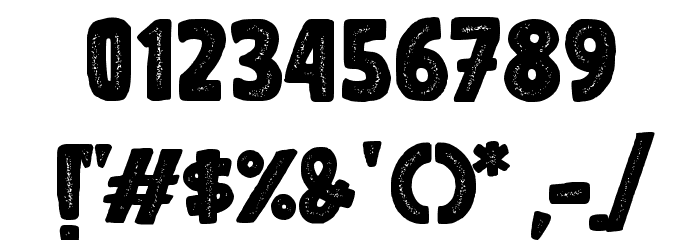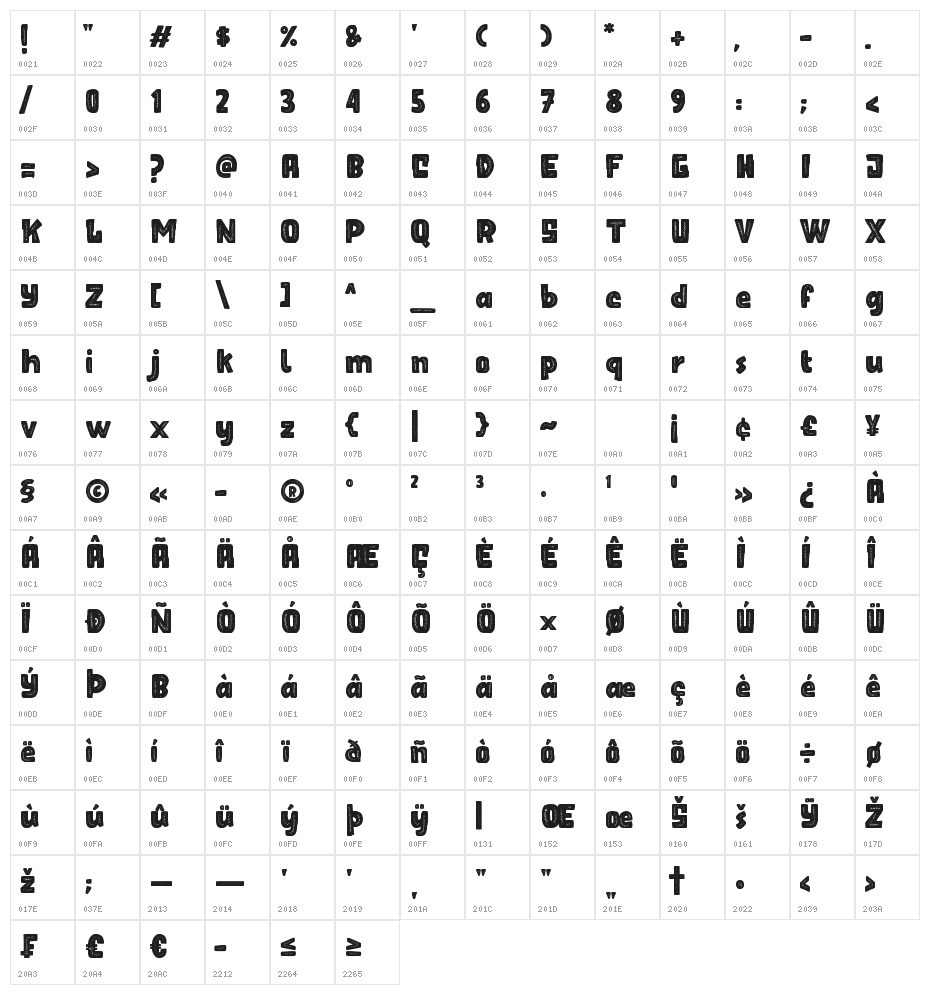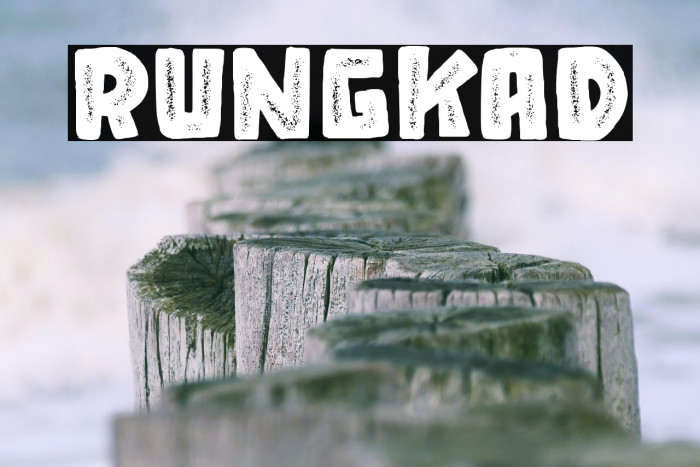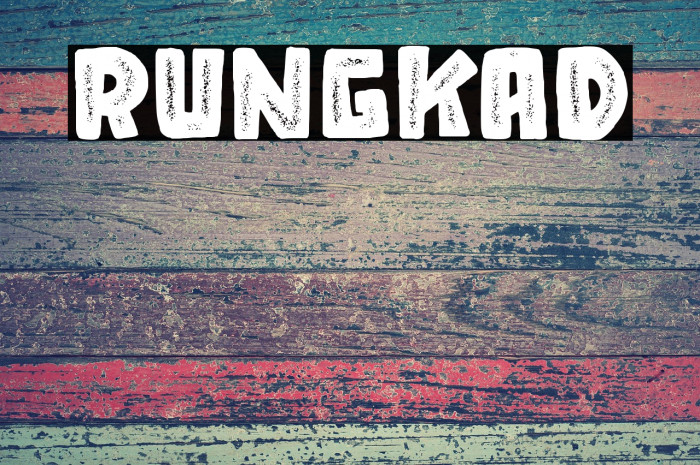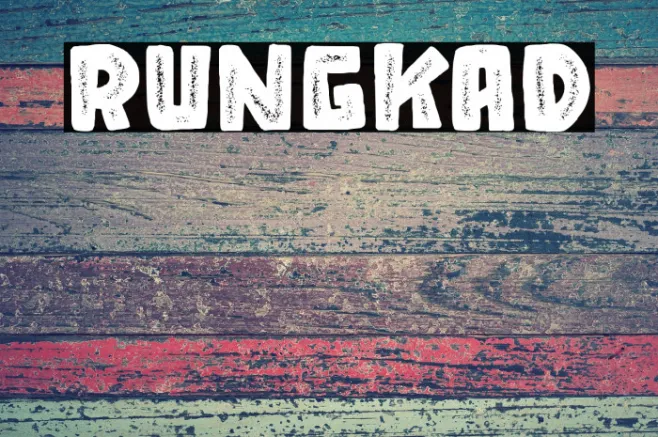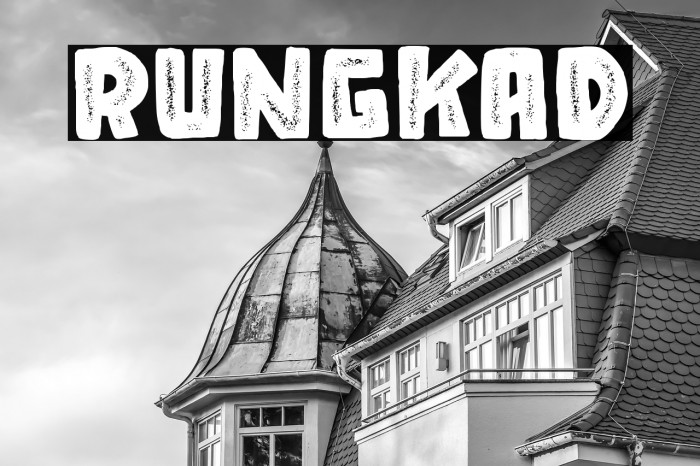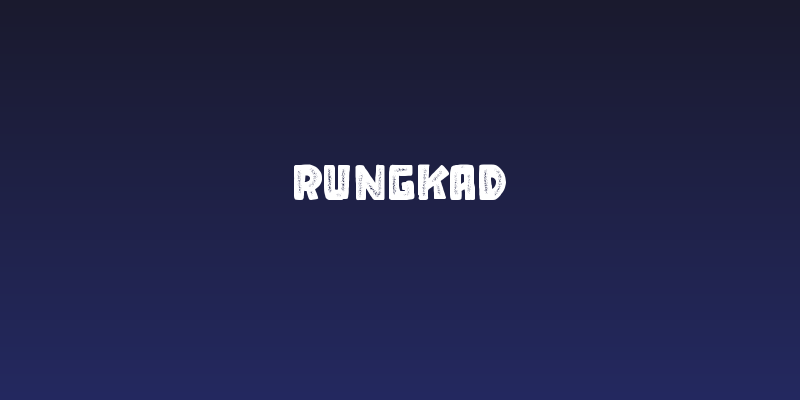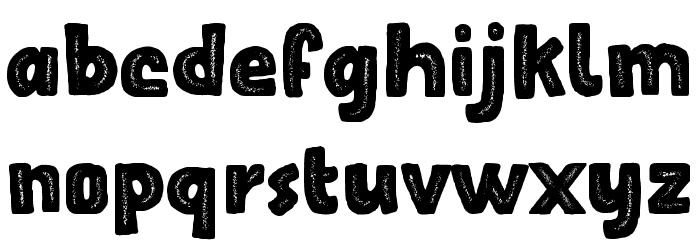
RUNGKAD Font
RUNGKAD Description
This font features a bold, textured style with a distressed appearance, giving it a rugged and vintage feel. The characters are thick and slightly uneven, adding a handcrafted look. The uppercase and lowercase letters maintain a consistent weight, while the numbers and special characters follow the same design ethos, ensuring uniformity across the set. The texture within each character adds depth and interest, making it stand out in various design contexts. This font is ideal for projects that require a strong, eye-catching typeface with a touch of nostalgia.
| Proposed Projects | Ideal for posters, branding, packaging, and any design needing a bold, vintage touch. |